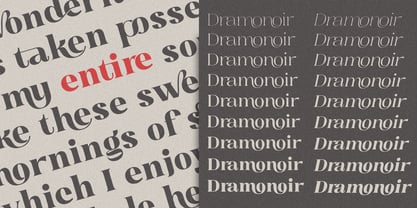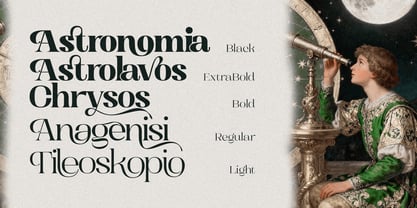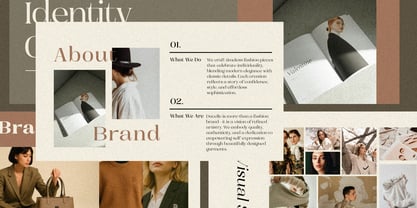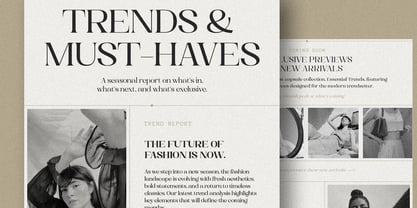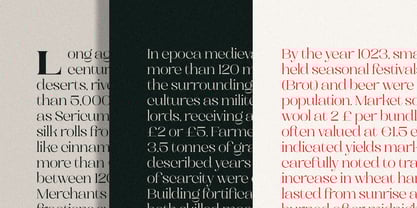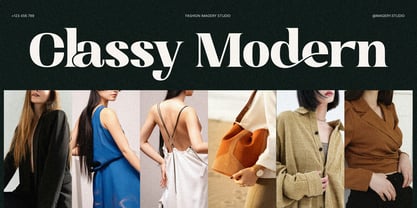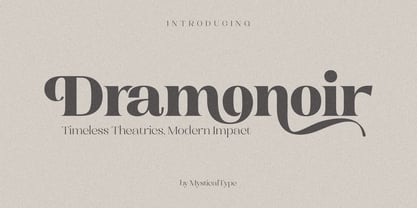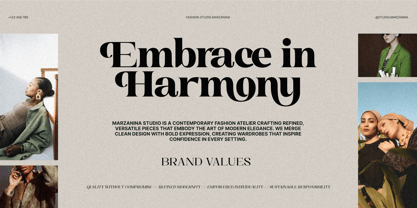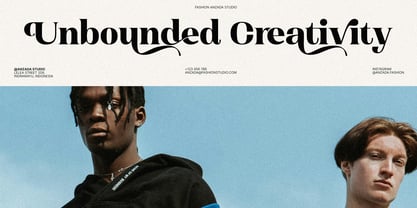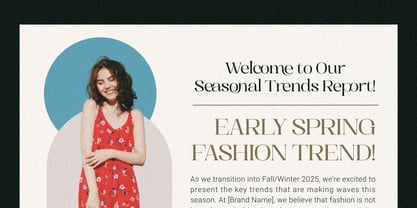
Dramonoir
Die Schriftfamilie Dramonoir wurde von Candi Erwanto entworfen und von MysticalType veröffentlicht. Dramonoir enthält 18 Stile und Familienpaketoptionen.
Dramonoir is a bold serif font featuring high contrast and unique elegant curves that make every character stand out. It conveys a vintage and luxurious aesthetic, making it ideal for adding a dramatic and classic theatrical touch to your designs. With 18 versatile styles, including normal and oblique, and 412 glyphs, Dramonoir supports multilingual functionality and precise kerning. Use Dramonoir for sophisticated branding, editorial layouts, luxury packaging, invitations, theatrical posters, and any creative works that require timeless elegance and dramatic character. It brings refined artistic flair to both print and digital media, making it a versatile choice for designers seeking to evoke vintage charm and luxury in their projects.
Designer: Candi Erwanto